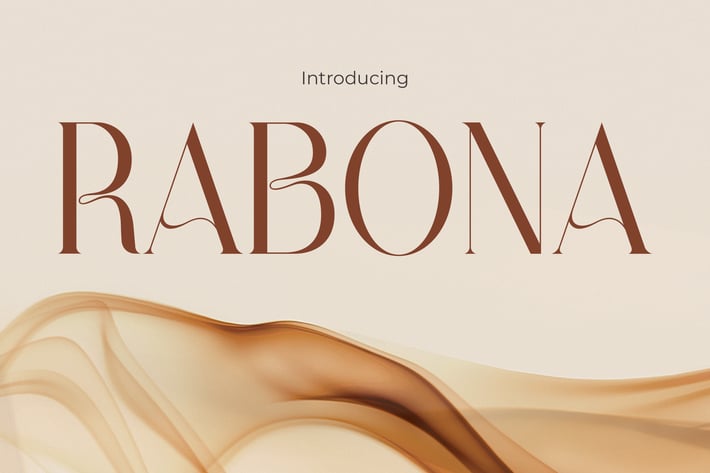
Rabona - Modern Elegance Font
Rabona
Elegant high-contrast serif for luxury branding and editorial with soft curves and vertical drama.
RABONA is a refined, expressive display typeface with delicate terminals and high vertical proportions. It blends romantic softness with dramatic flair—ideal for upscale brands, bridal magazines, and lifestyle packaging. The letterforms feature a fluid rhythm and just the right amount of contrast, offering a look that’s both modern and classic with timeless grace.
RABONA was made for projects that seek to seduce the eye and elevate the brand story—from wedding invitations and cosmetic packaging to fashion covers, boutique logos, and lifestyle blogs. With a whisper of femininity and high editorial value, this font immediately communicates style, sophistication, and poise—appealing to clients in fashion, luxury, beauty, and culture.
Key Features :
Romantic & Sophisticated Appeal
- Tall, elegant letterforms with graceful transitions
- Soft curvature balanced by strong vertical flow
Built for High-End Use
- Ideal for beauty packaging, fashion magazines, upscale branding
- Perfect for headlines, logotypes, editorials, and printed wedding goods
Flexible & Readable
- Harmonizes modern luxury with classical balance
- Strong typographic presence for both digital and print use
Step into elegance with RABONA—a display typeface designed to add romance and refinement to every visual. Whether you're crafting a bridal brand, launching a beauty line, or designing an editorial spread, RABONA brings graceful power to your typography.